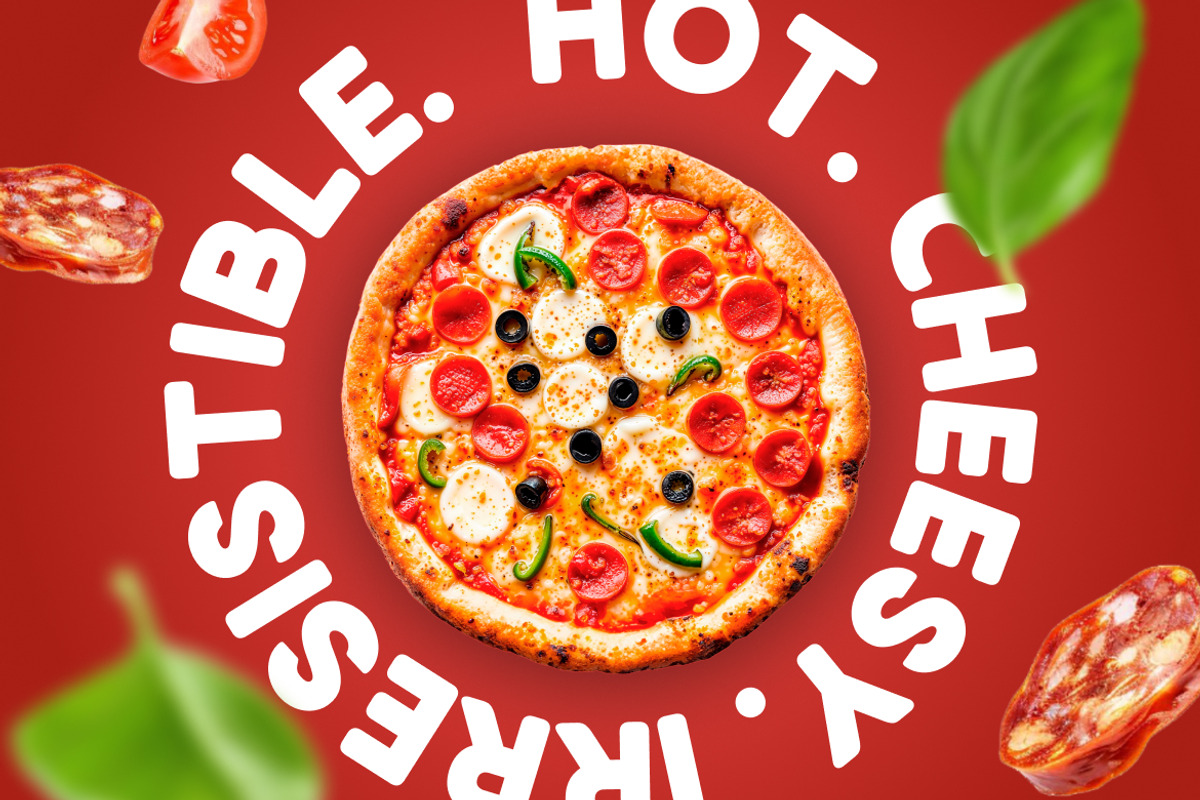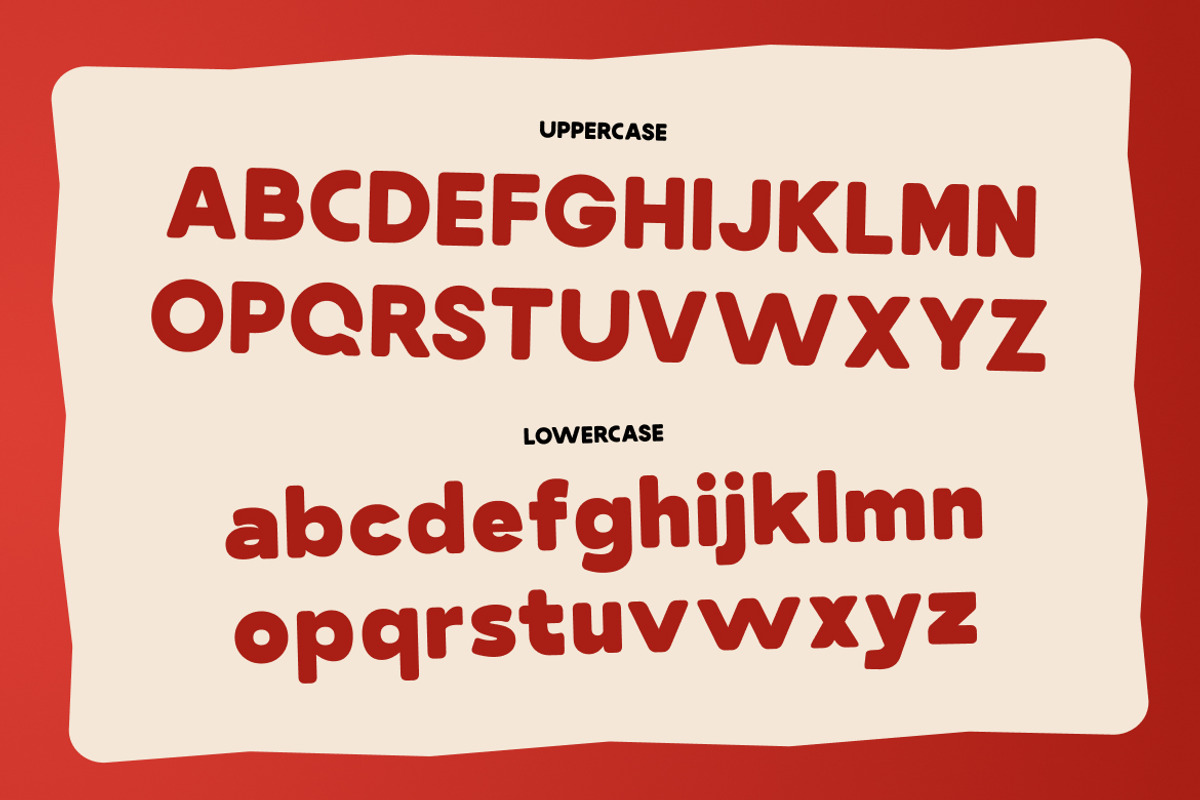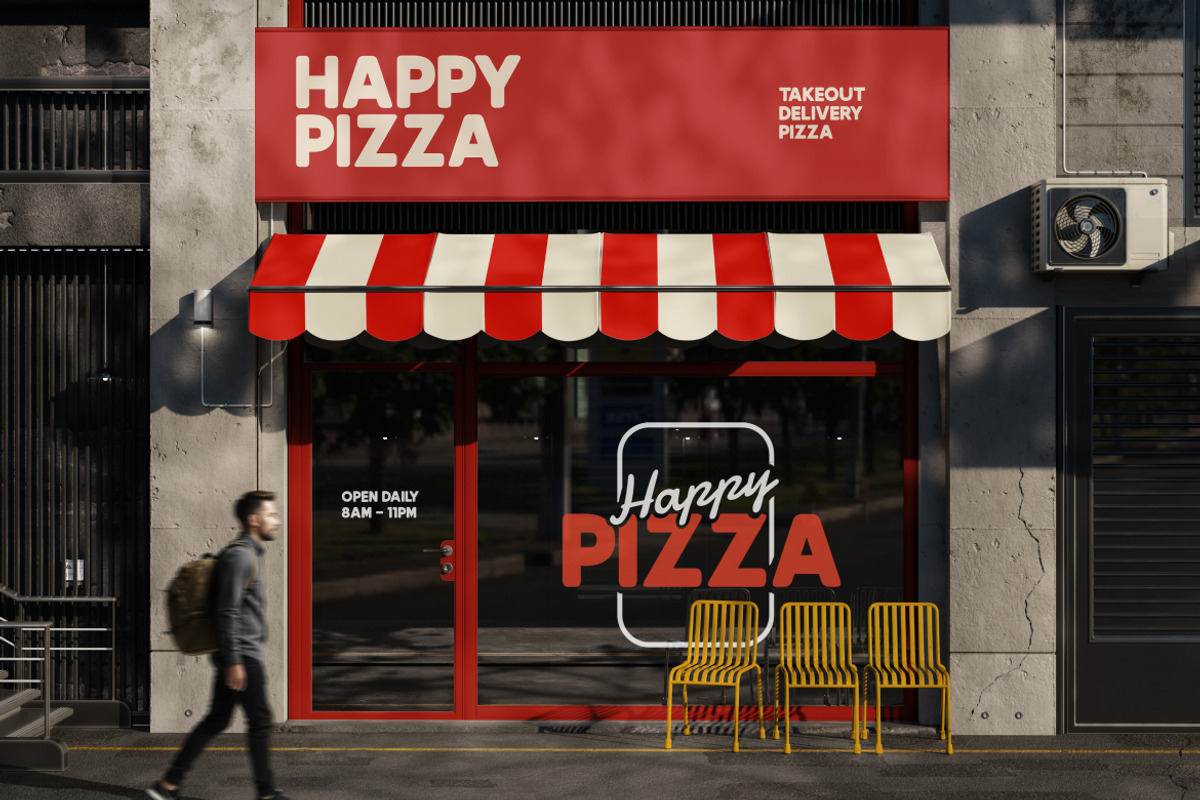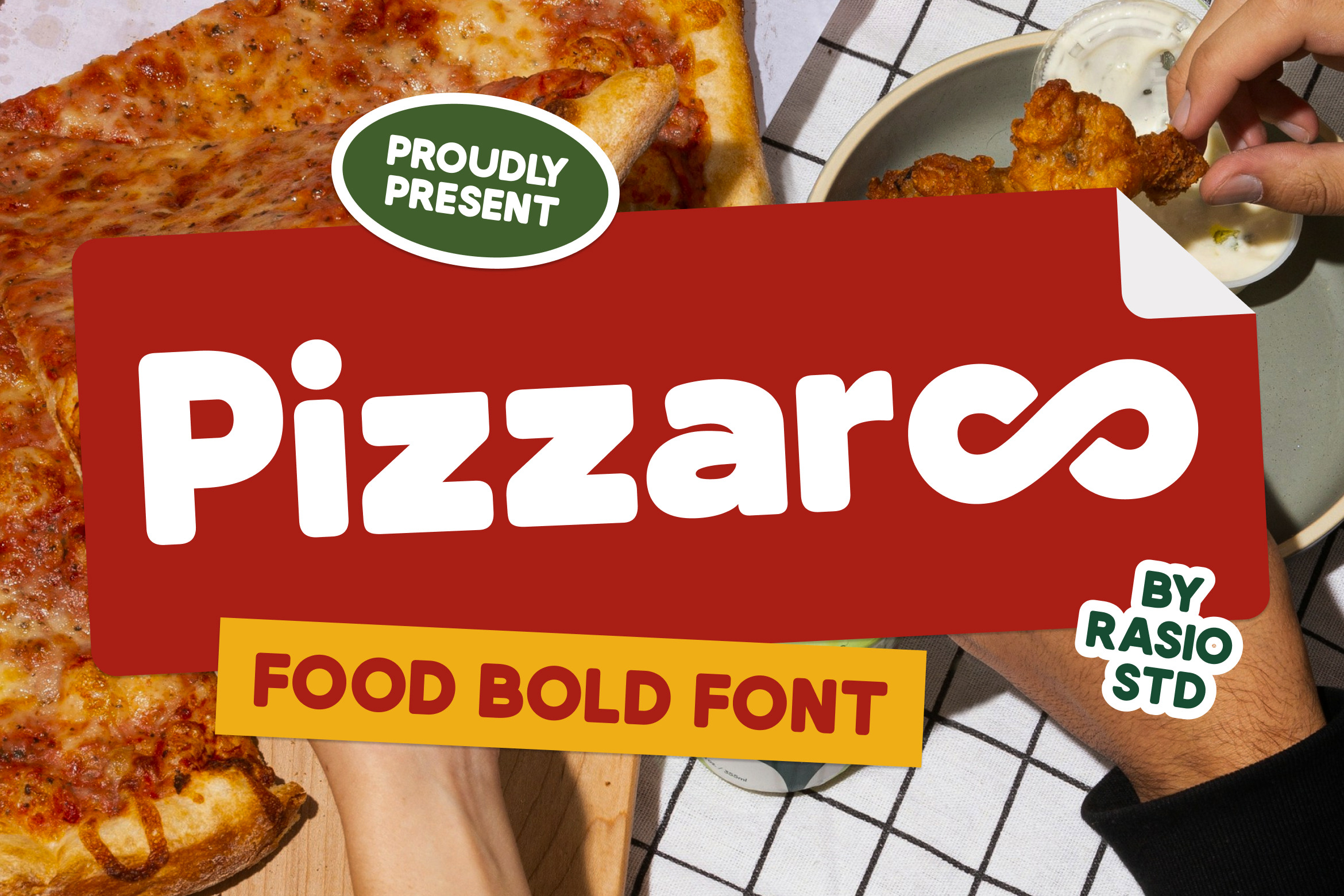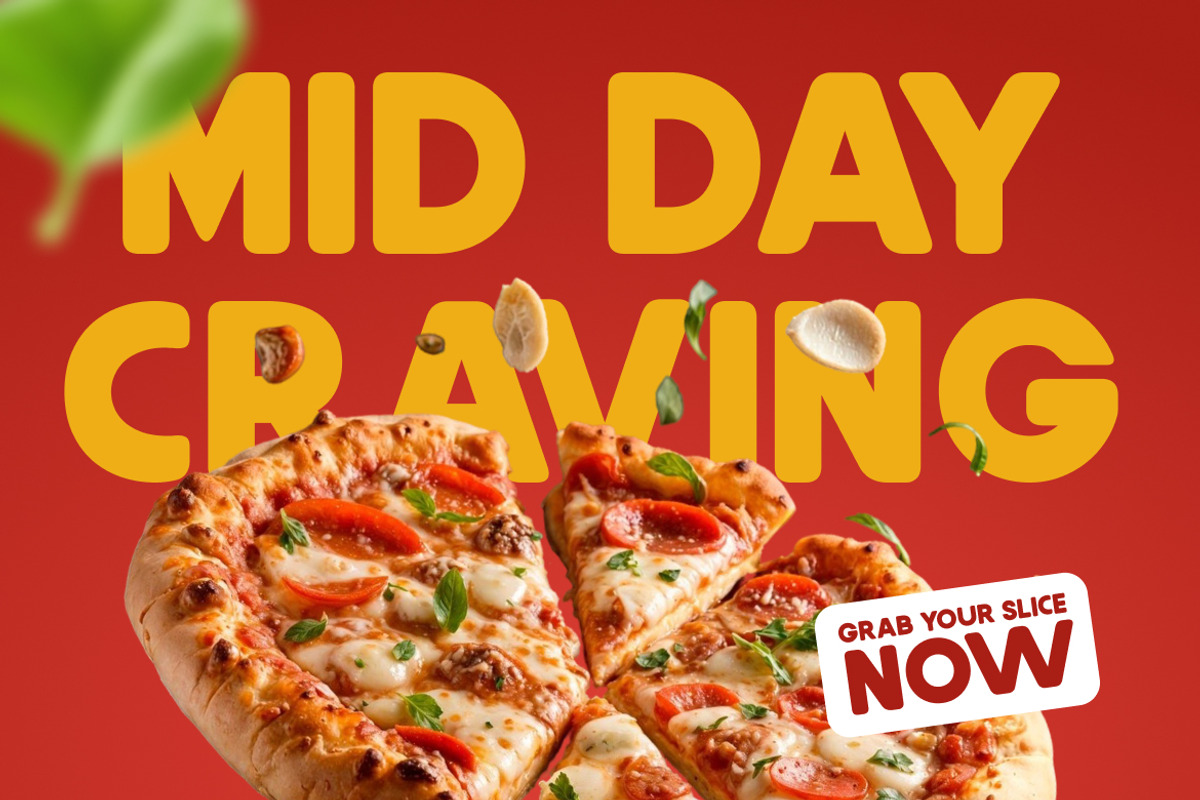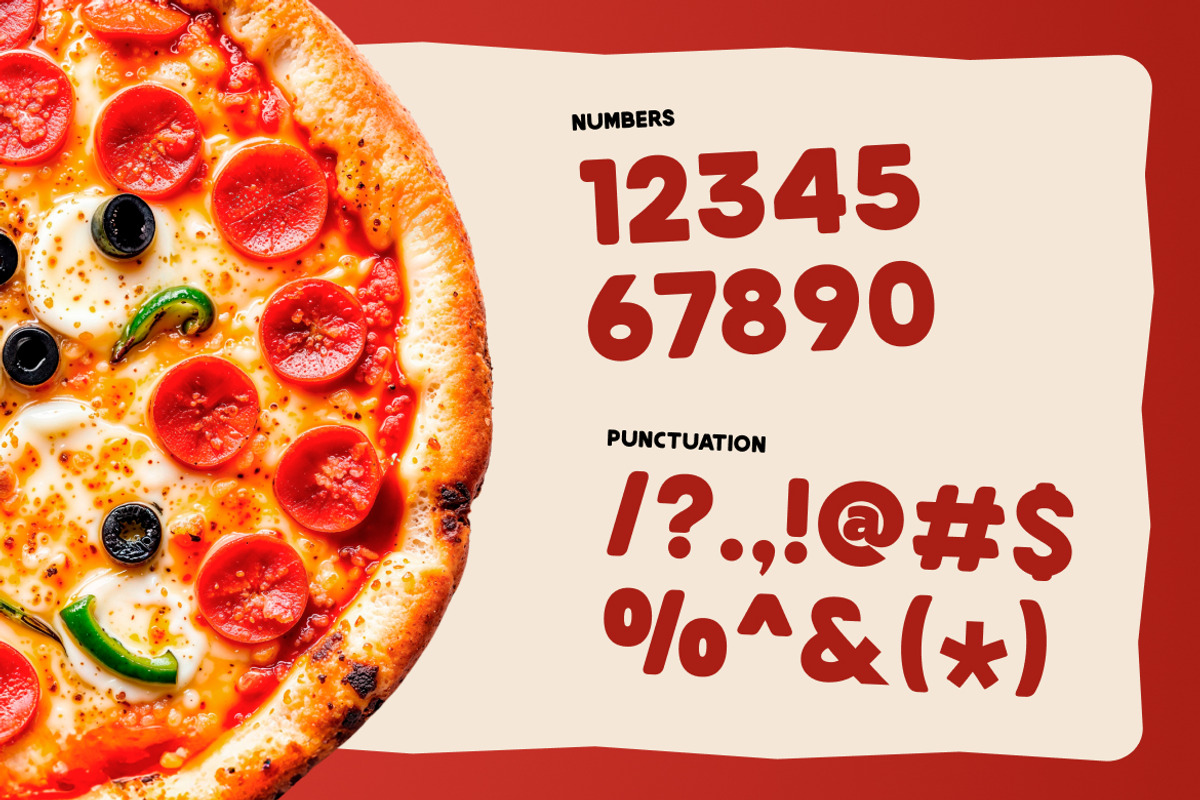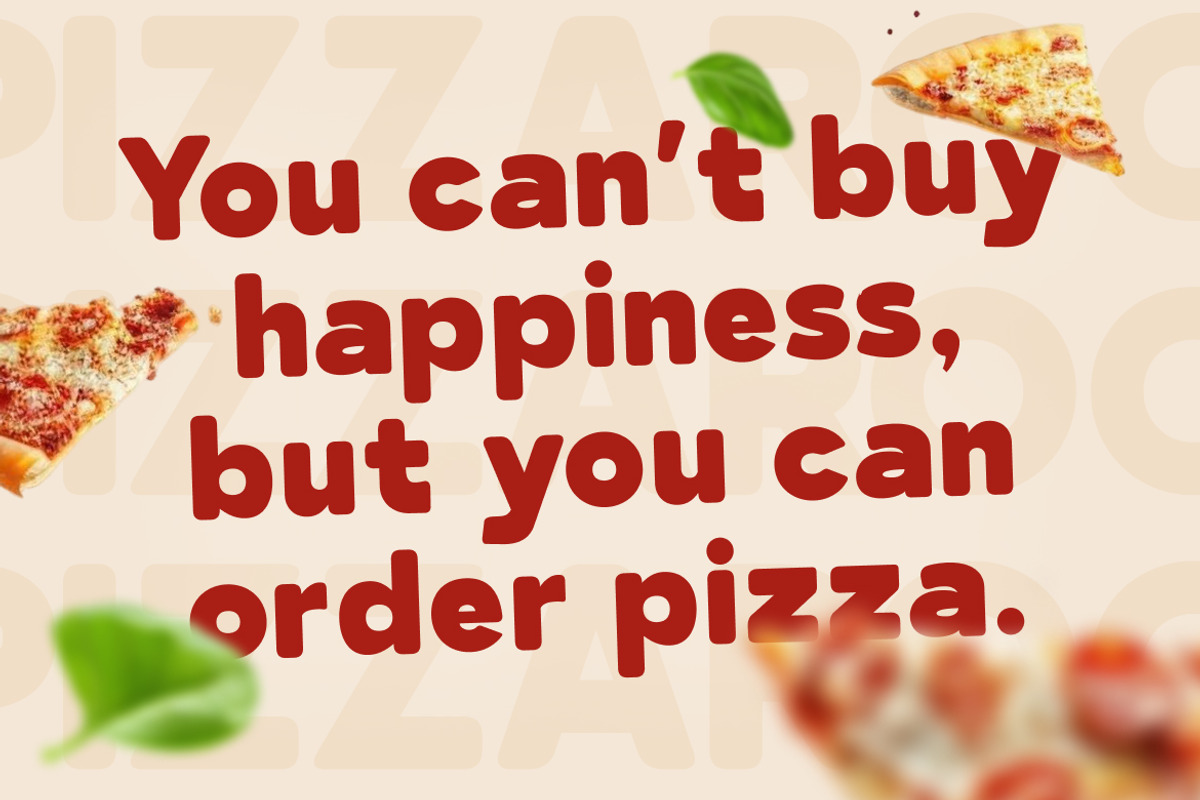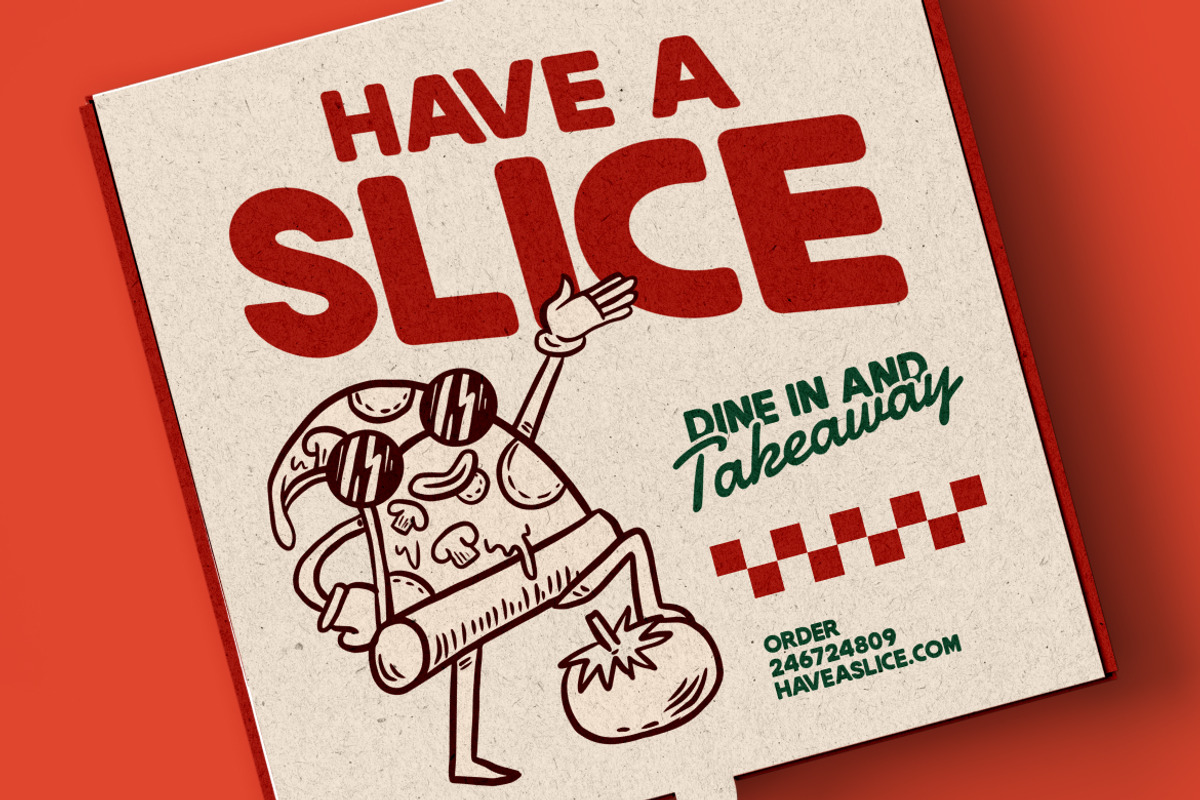
Pizzaro Food Bold Font
Pizzaroo is a bold and playful display typeface designed with chunky shapes, rounded corners, and thick strokes that create a warm, friendly, and appetizing personality. The letterforms feature soft curves and heavy proportions that deliver strong visual impact while keeping excellent readability at large sizes. It includes uppercase, lowercase, numerals, punctuation, and multilingual support.
Pizzaroo is highly relevant for food and beverage branding, restaurant menus, snack packaging, fast food promotions, kids products, café signage, posters, social media ads, and playful marketing materials. Its thick rounded forms and cheerful personality make it perfect for designs that need to feel fun, tasty, approachable, and attention-grabbing.
- Chunky bold letterforms with heavy proportions for strong visual impact
- Soft rounded corners and smooth curves that create a friendly, approachable feel
- Playful shapes with slightly bouncy geometry for energetic and fun personality
- Thick strokes and compact structure for excellent readability at large display sizes
- Balanced spacing and solid silhouettes that keep headlines clear, bold, and eye-catching
- Food and beverage branding such as pizza shops, cafes, snacks, and street food stalls
- Restaurant menus, packaging, labels, and promotional materials with bold personality
- Kids products, playful merchandise, and cheerful lifestyle brands
- Posters, headlines, social media graphics, and eye-catching advertisements
- Event flyers, seasonal campaigns, and marketing visuals that need strong impact
Pizzaroo makes your headlines loud, tasty, and impossible to miss